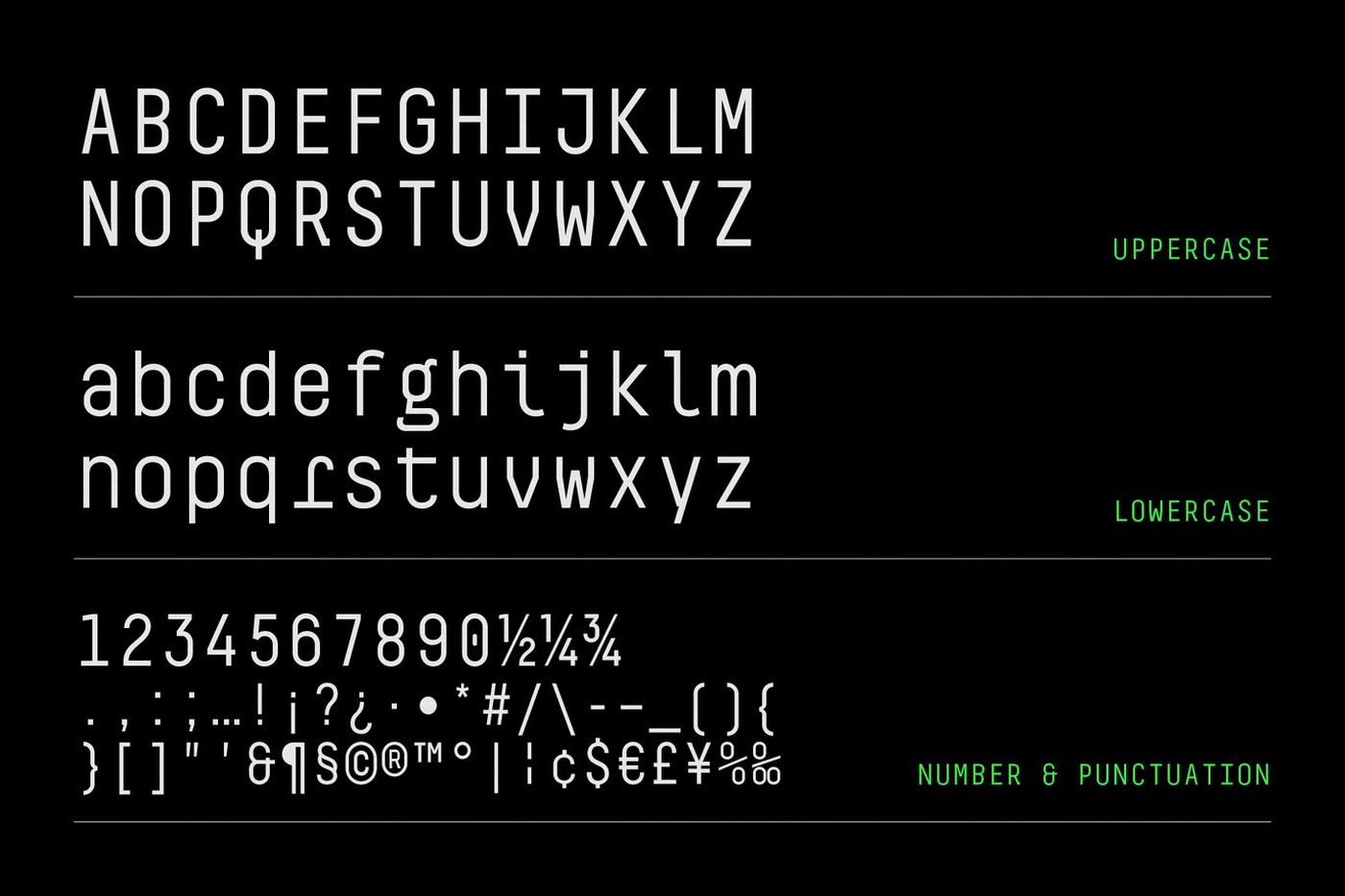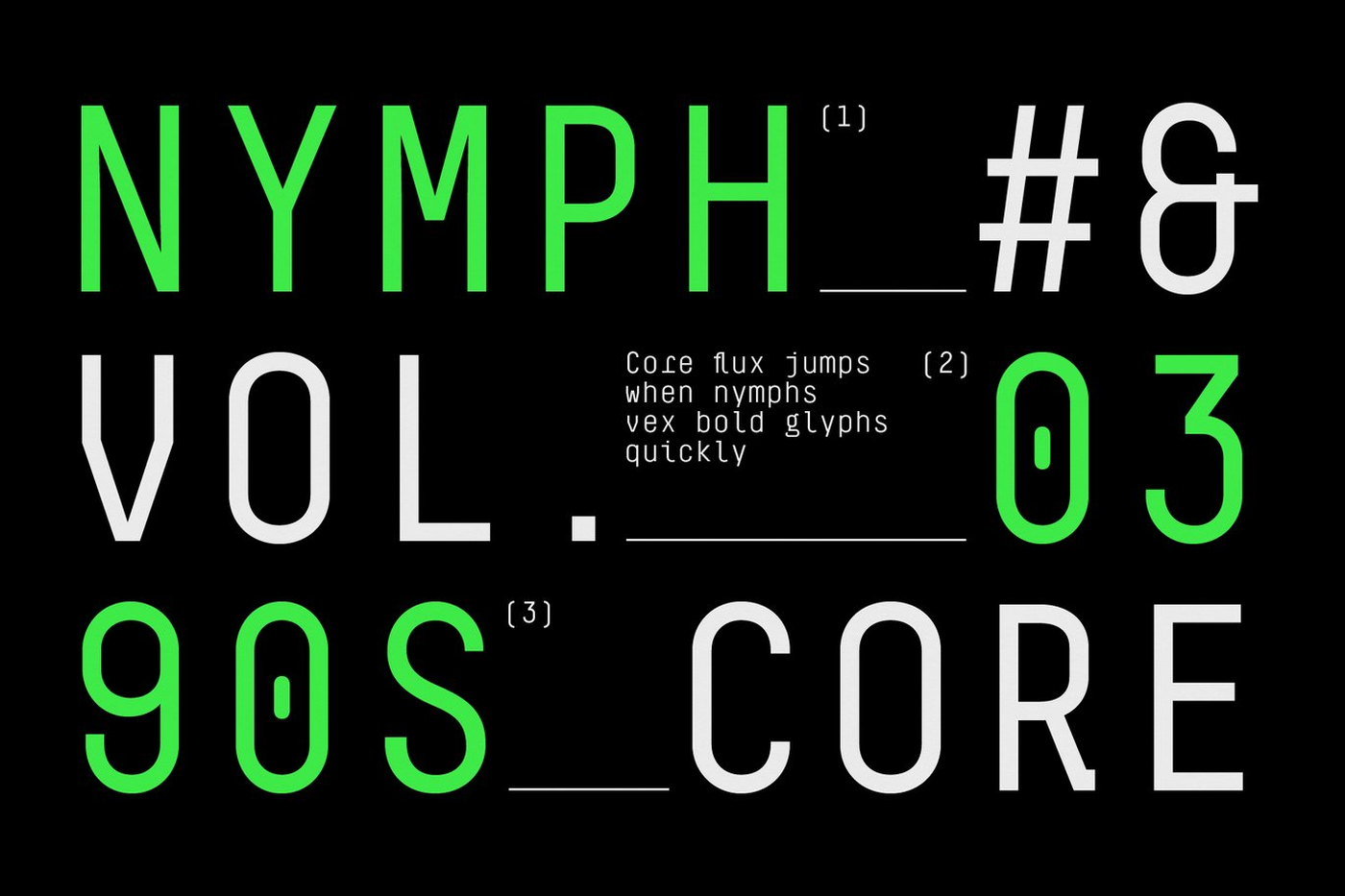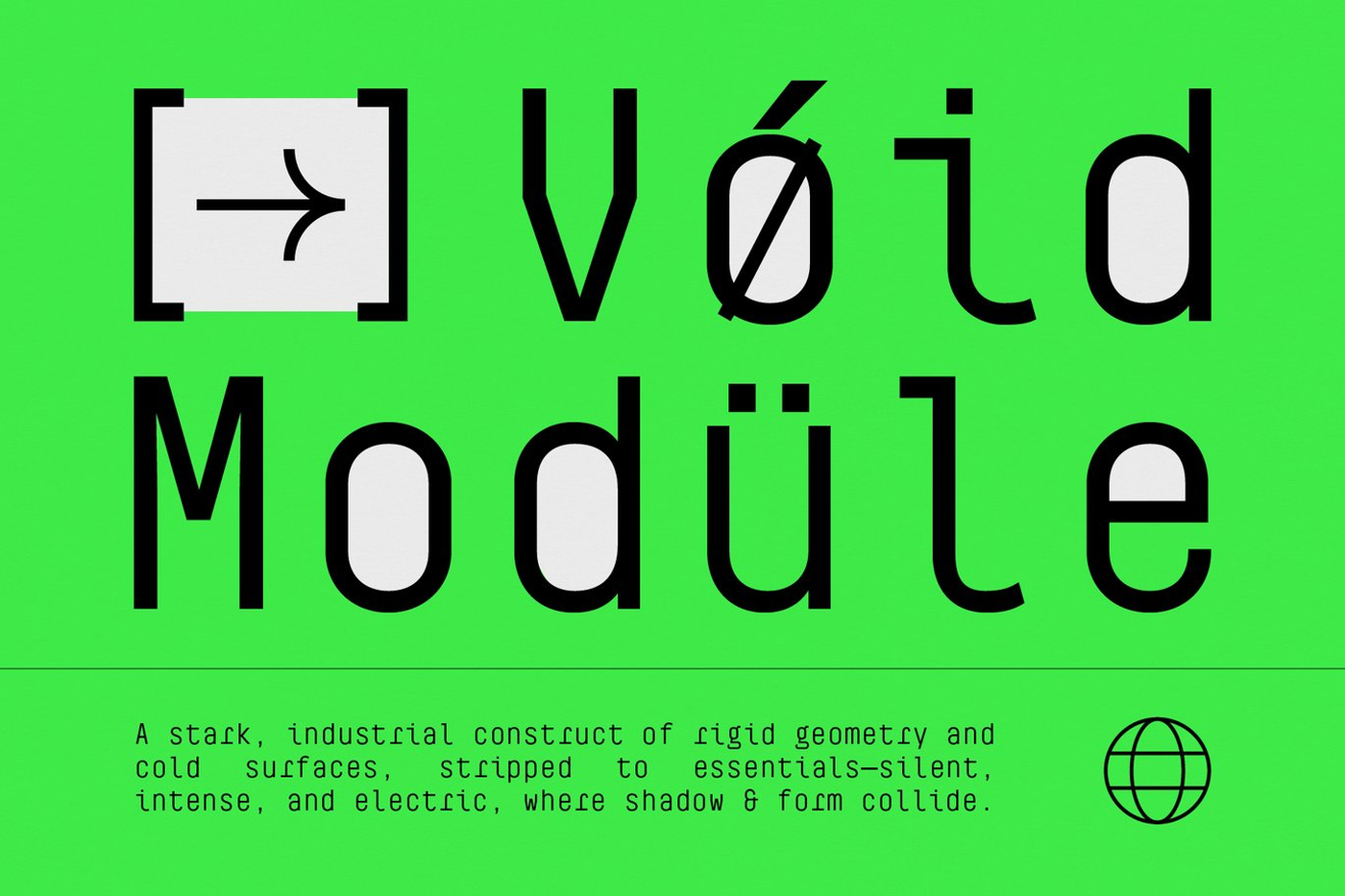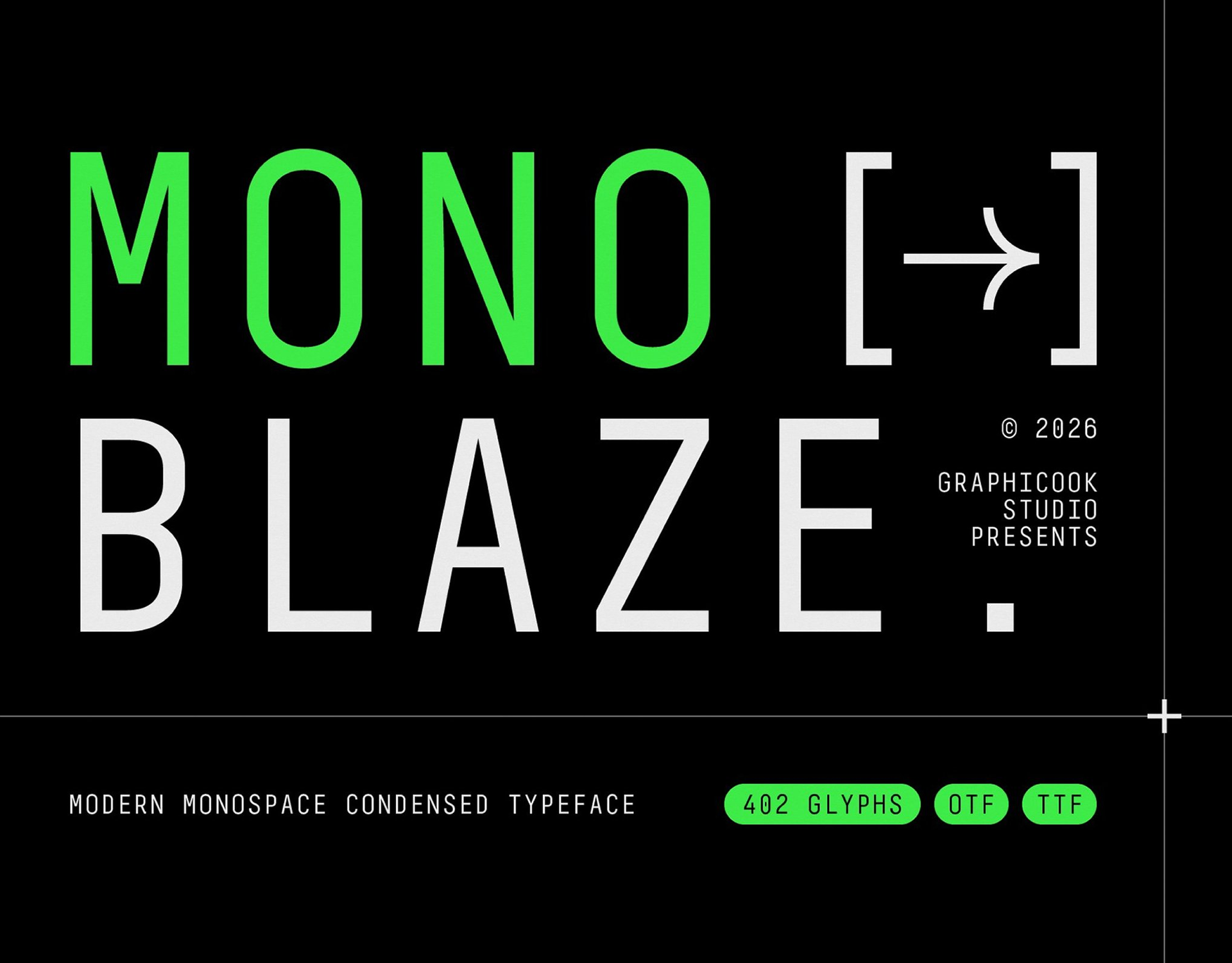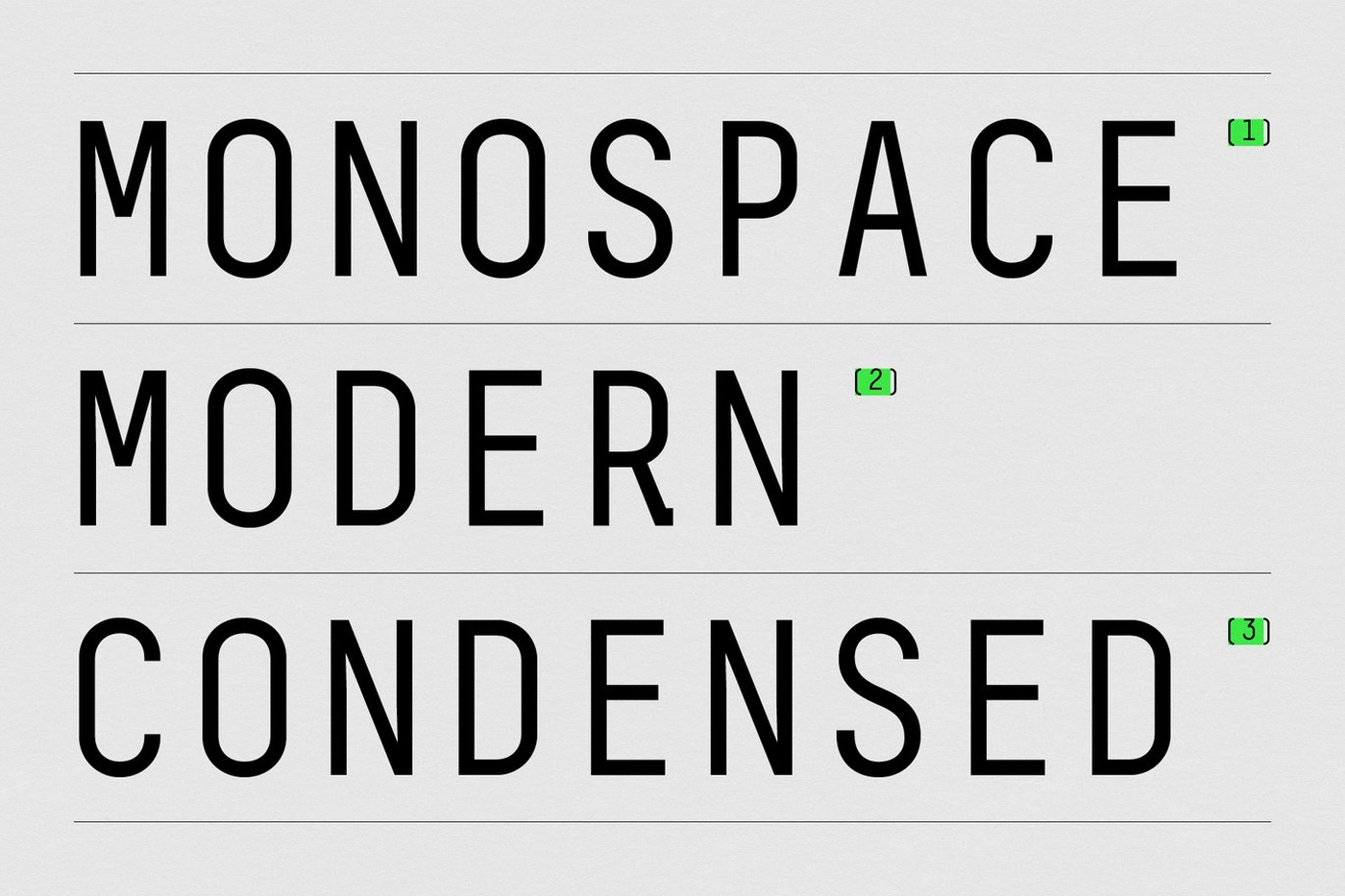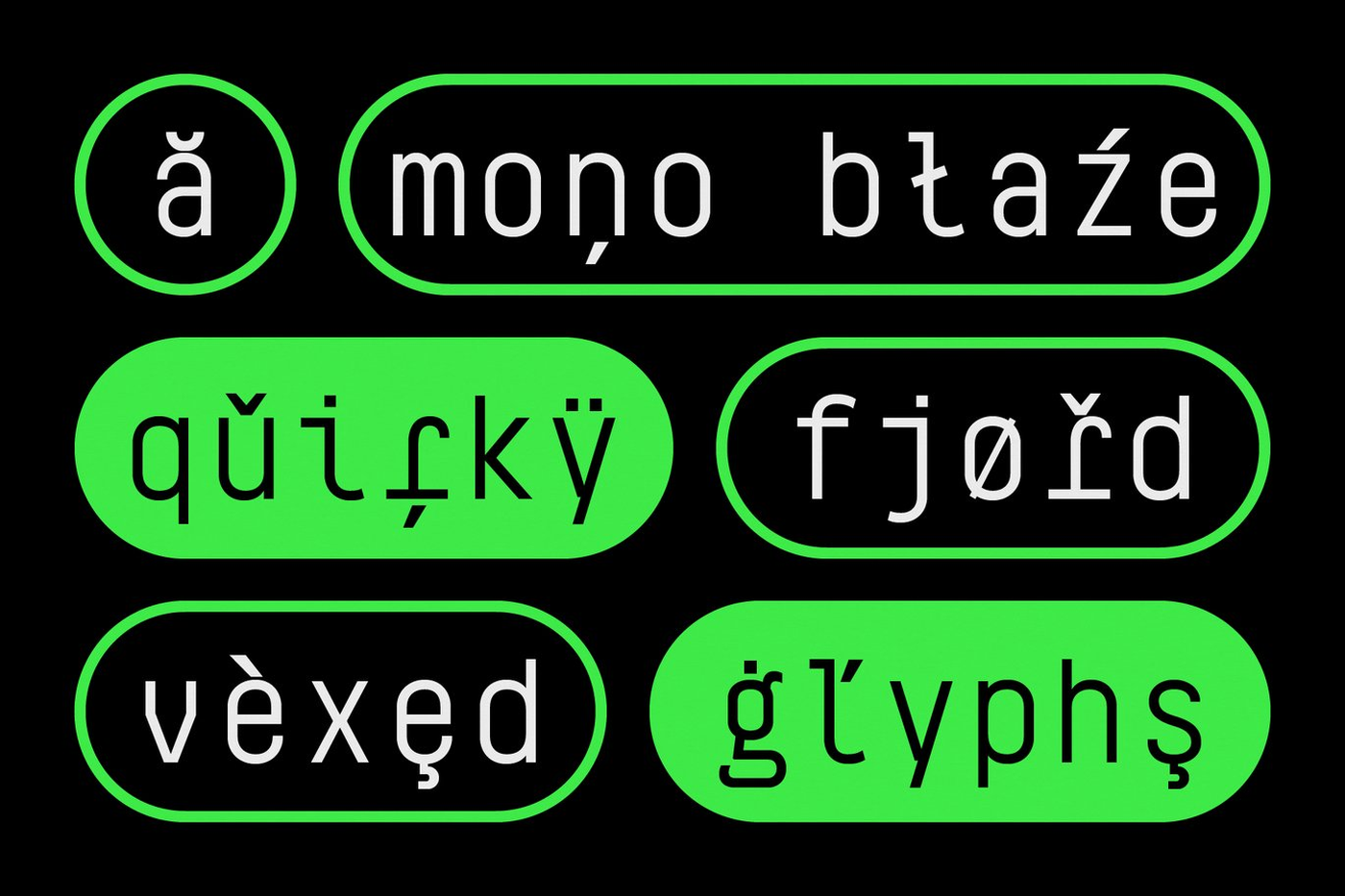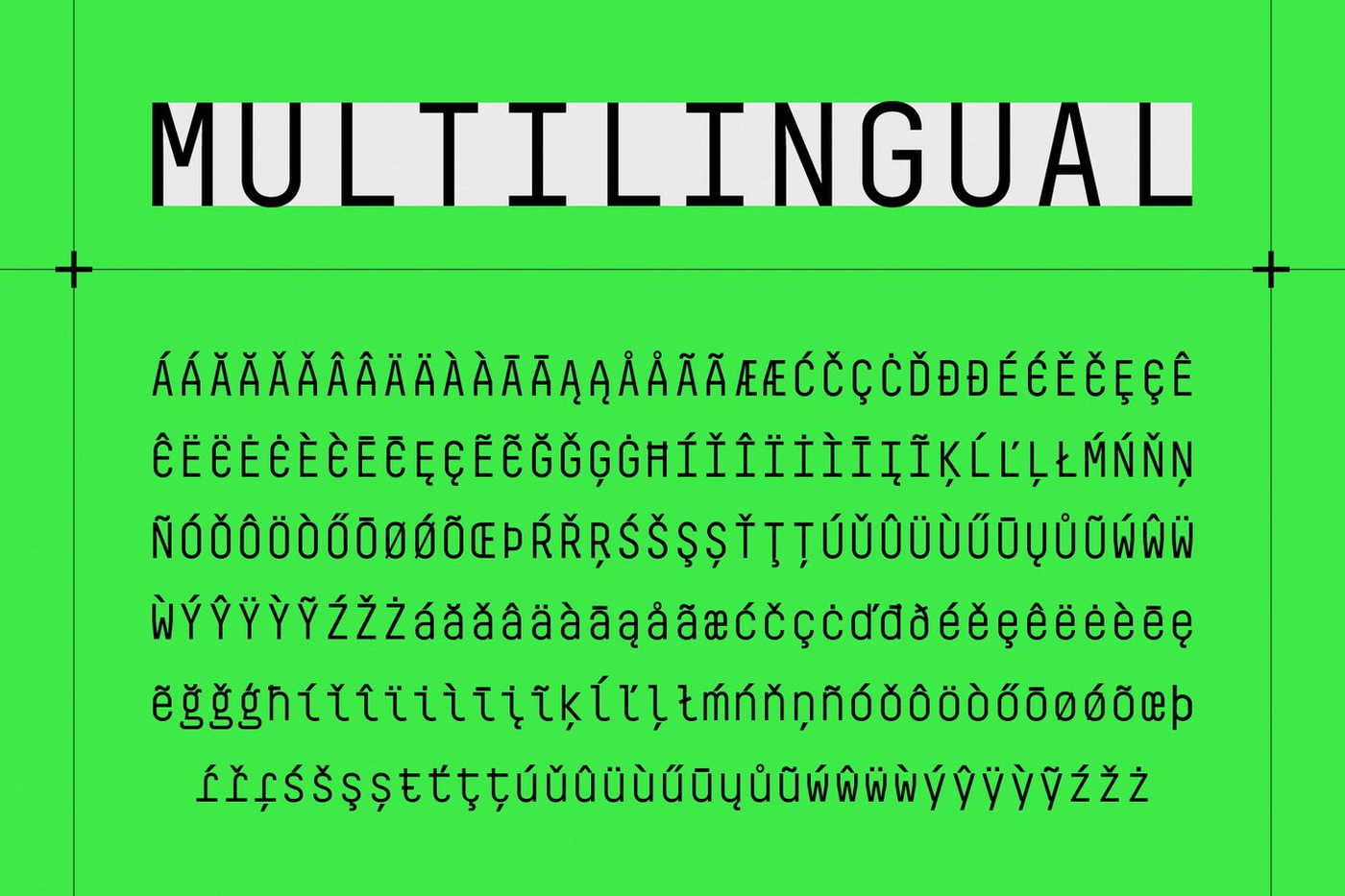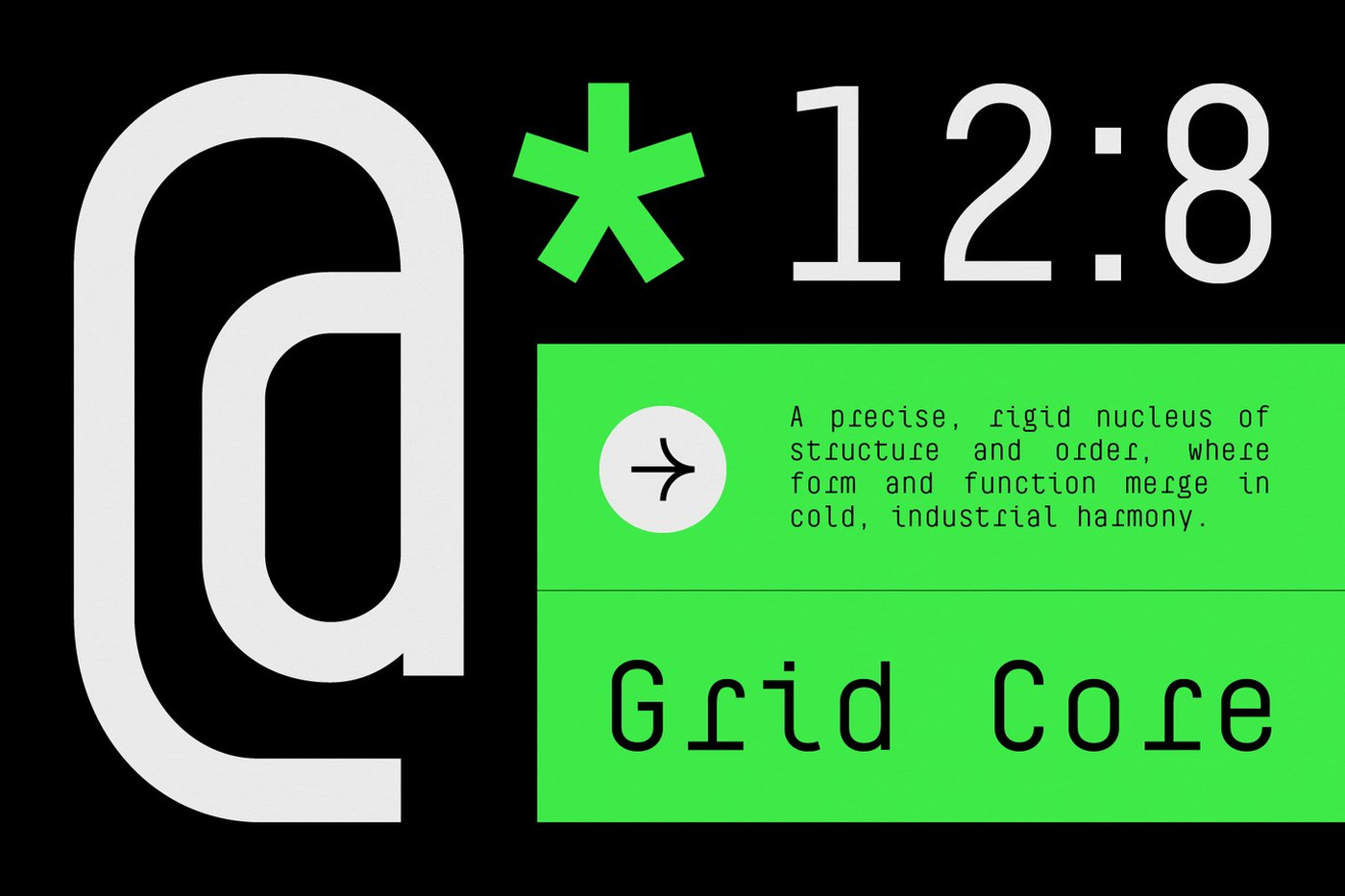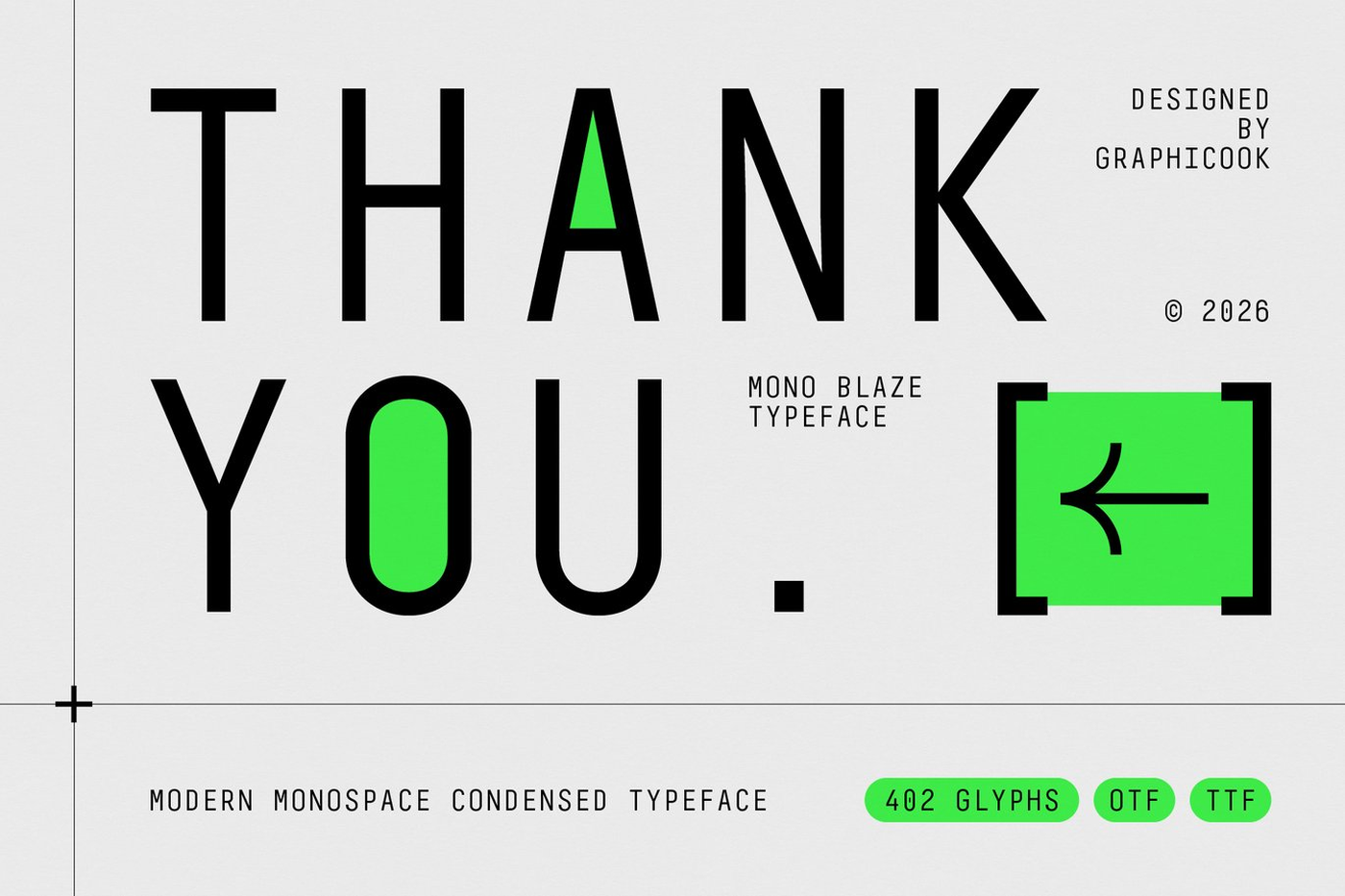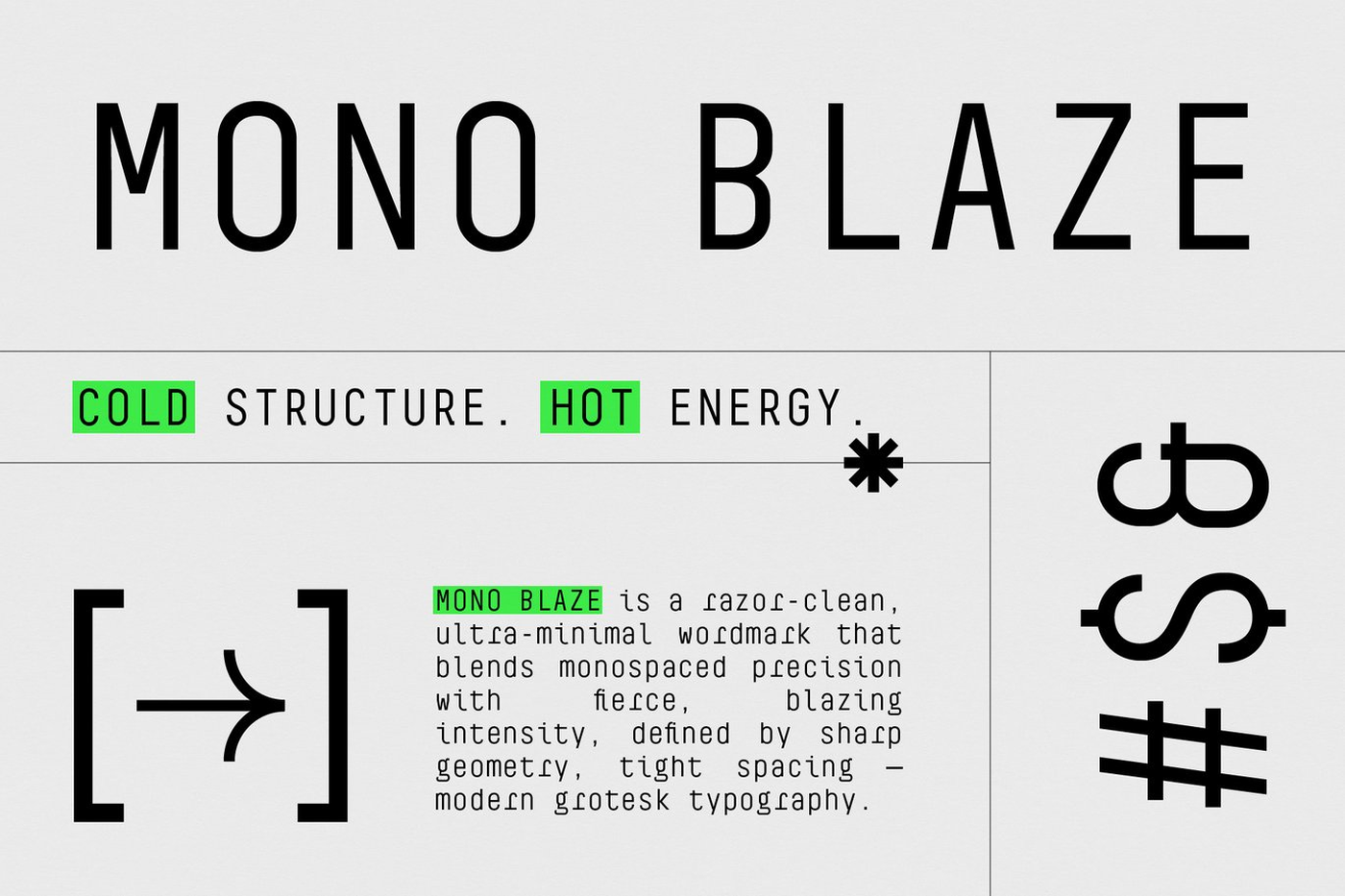
Mono Blaze - Monospace Condensed Font
Mono Blaze is a modern monospaced condensed typeface designed for clean, futuristic, and high-impact typography. Mono Blaze delivers a strong visual rhythm that works beautifully for headlines, UI design, coding themes, branding, editorial layouts, posters, and digital interfaces.